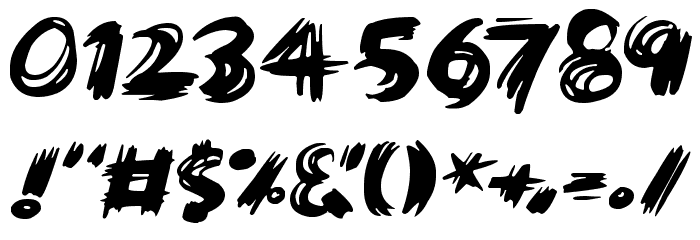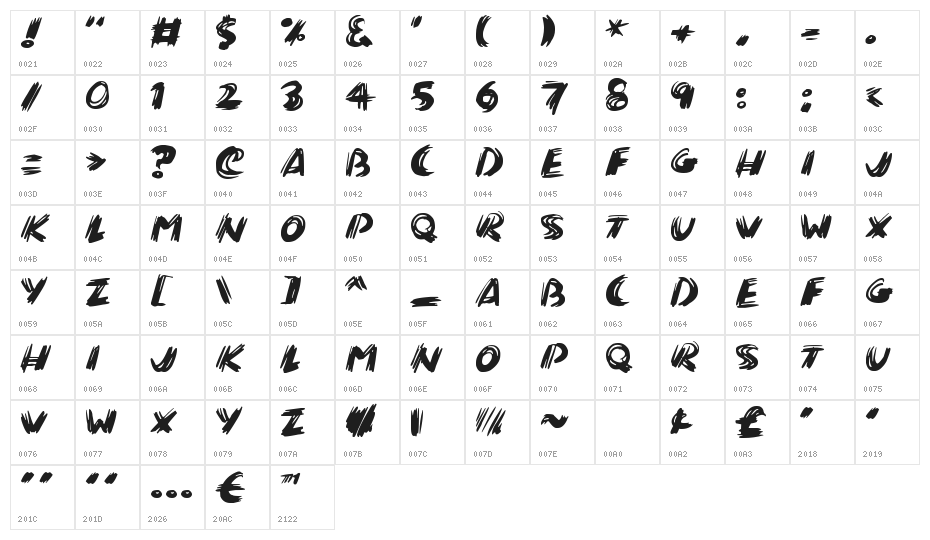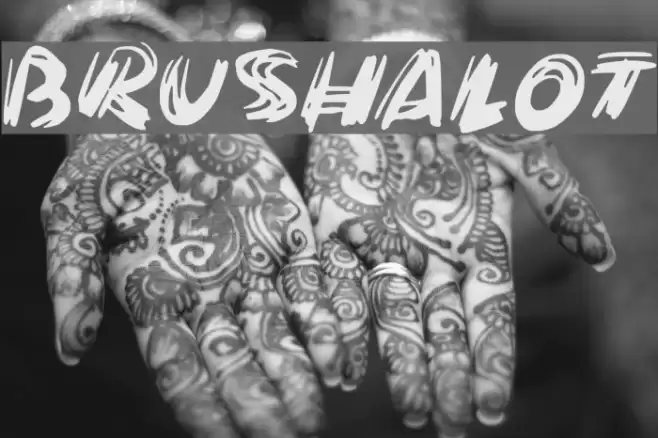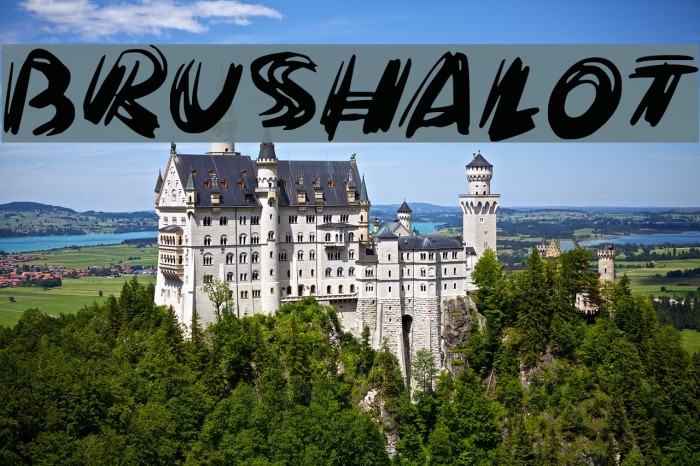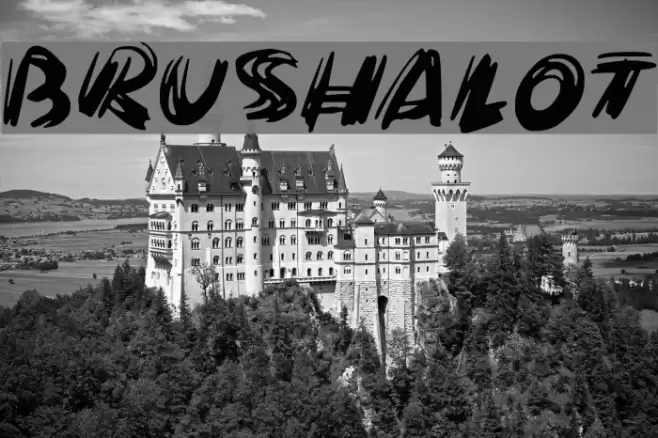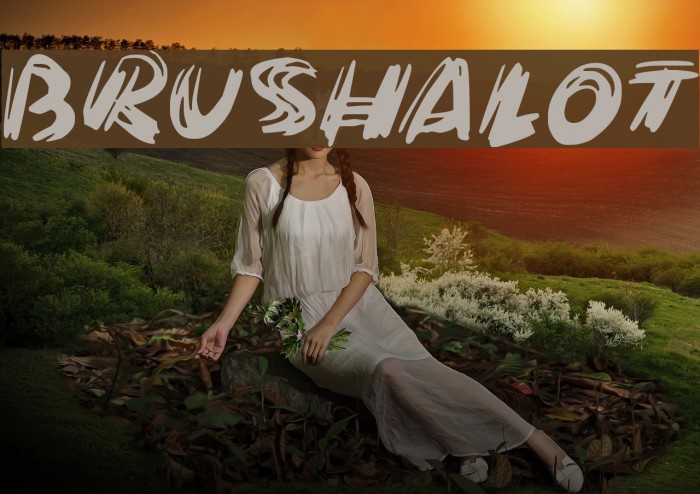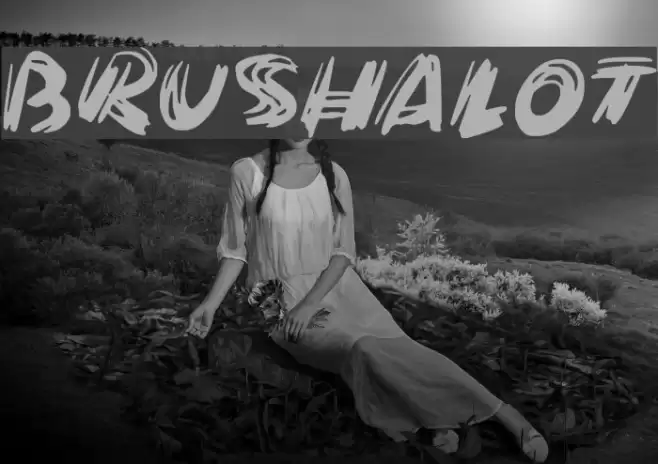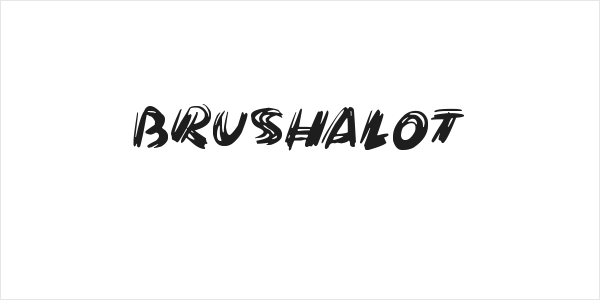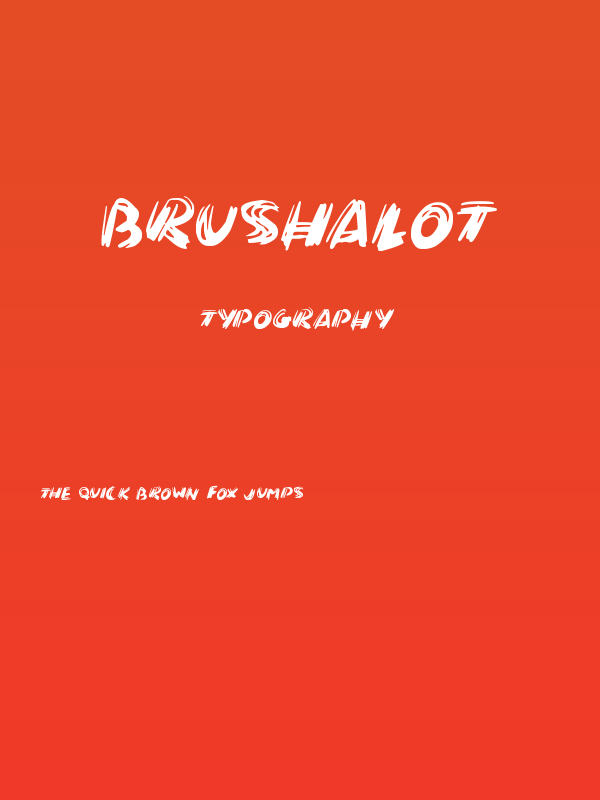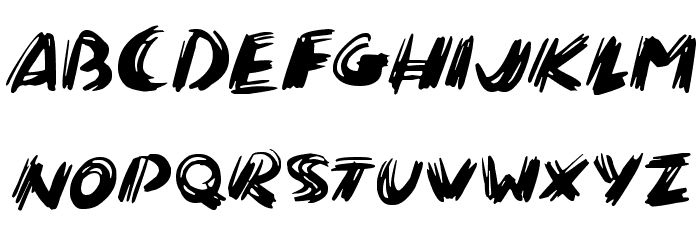
Brushalot Font
Brushalot Description
This font exudes a dynamic and energetic style, characterized by bold, brush-like strokes that give it a hand-painted appearance. The letters are crafted with varying thicknesses, creating a sense of movement and spontaneity. The uppercase and lowercase letters maintain a consistent style, with sharp angles and fluid curves that enhance its expressive nature. Numbers and special characters follow the same aesthetic, ensuring a cohesive look across all elements. This font is ideal for projects that require a bold, artistic touch, making it perfect for creative and eye-catching designs.
| Proposed Projects | Ideal for posters, logos, album covers, and any design needing an artistic flair. |